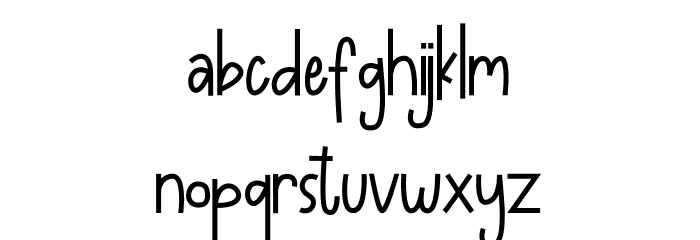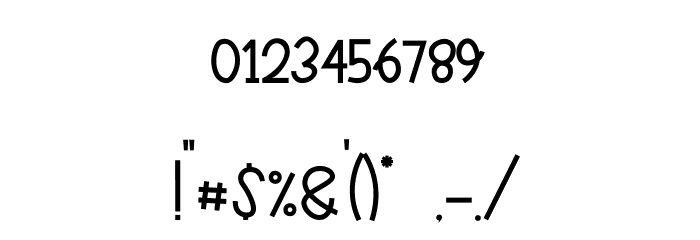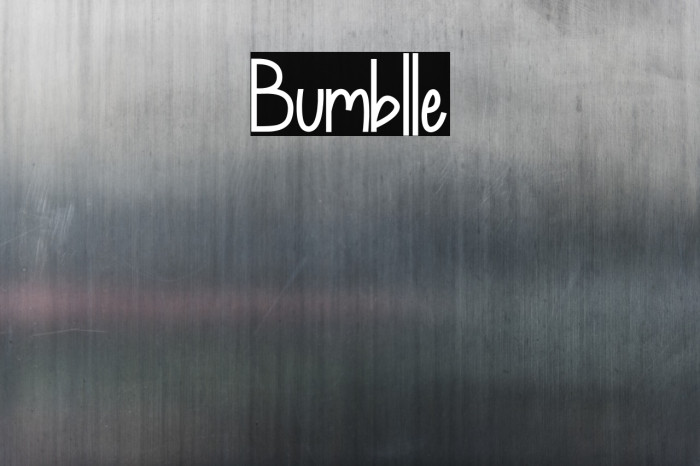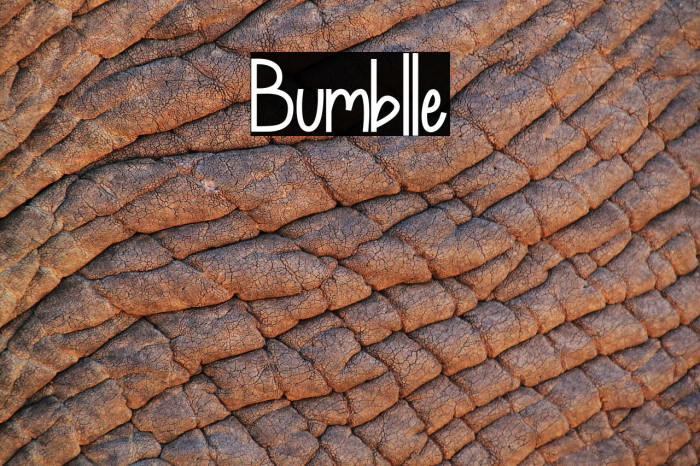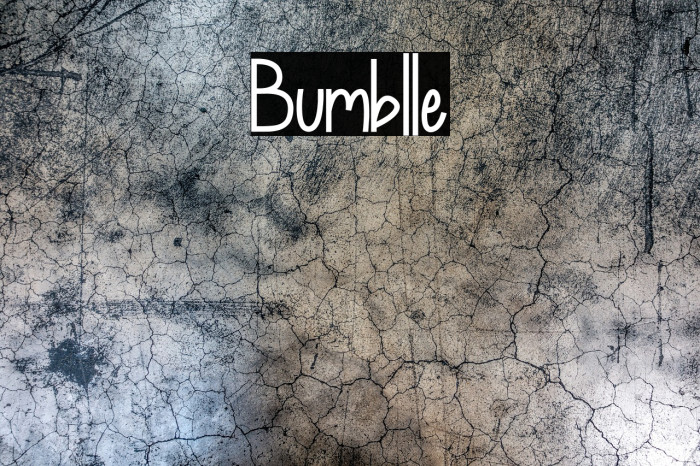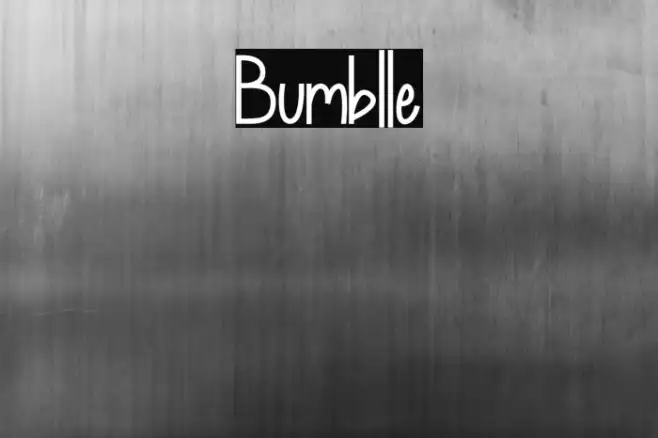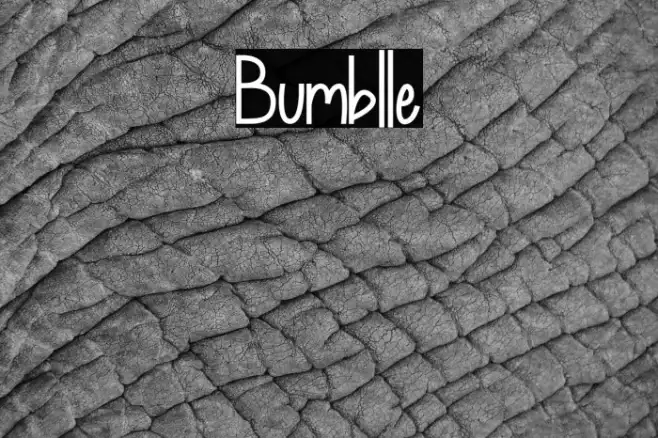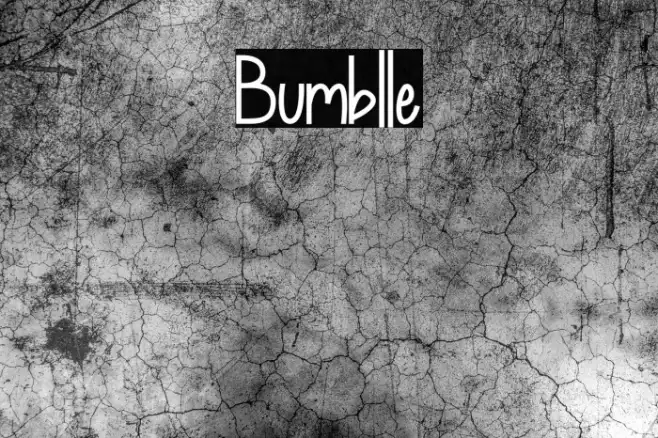
Bumblle Font
This font features a playful and whimsical design, characterized by its tall, narrow letters with a slight handwritten feel. The uppercase letters are clean and straightforward, while the lowercase letters exhibit a charming irregularity, adding a touch of personality. The numerals are consistent with the overall style, maintaining the same playful aesthetic. Special characters are well-integrated, ensuring versatility in various contexts. The font's unique style makes it suitable for creative projects that require a fun and informal touch.
A playful, whimsical font with a handwritten feel and narrow letters.
- Proposed Projects: Ideal for children's books, playful branding, greeting cards, and creative posters.
- Overall Style: Playful
- Use Case: Logos, Posters, Greeting Cards